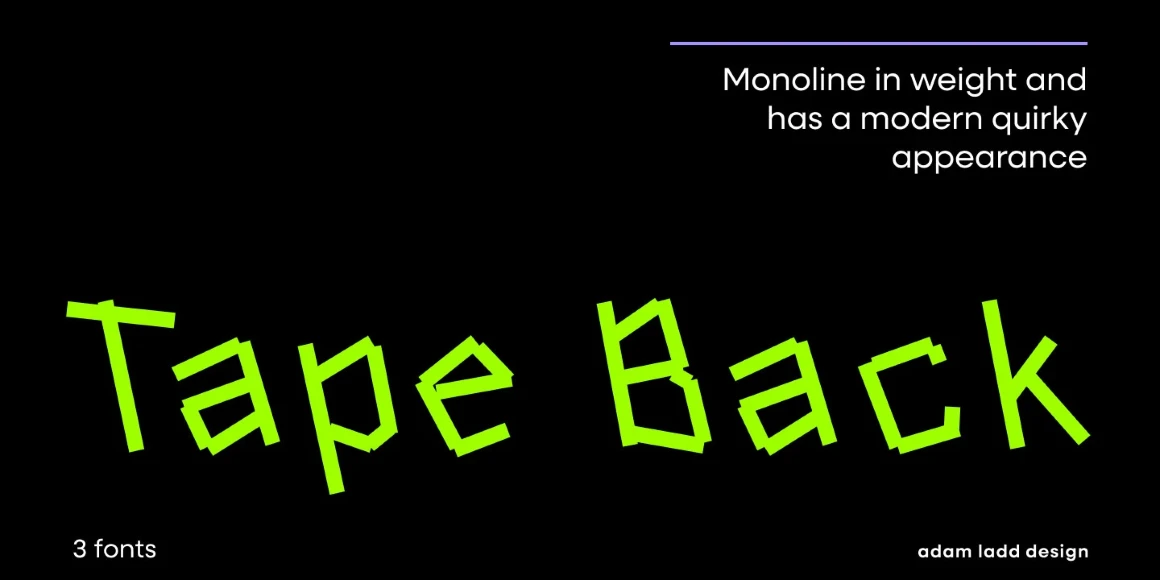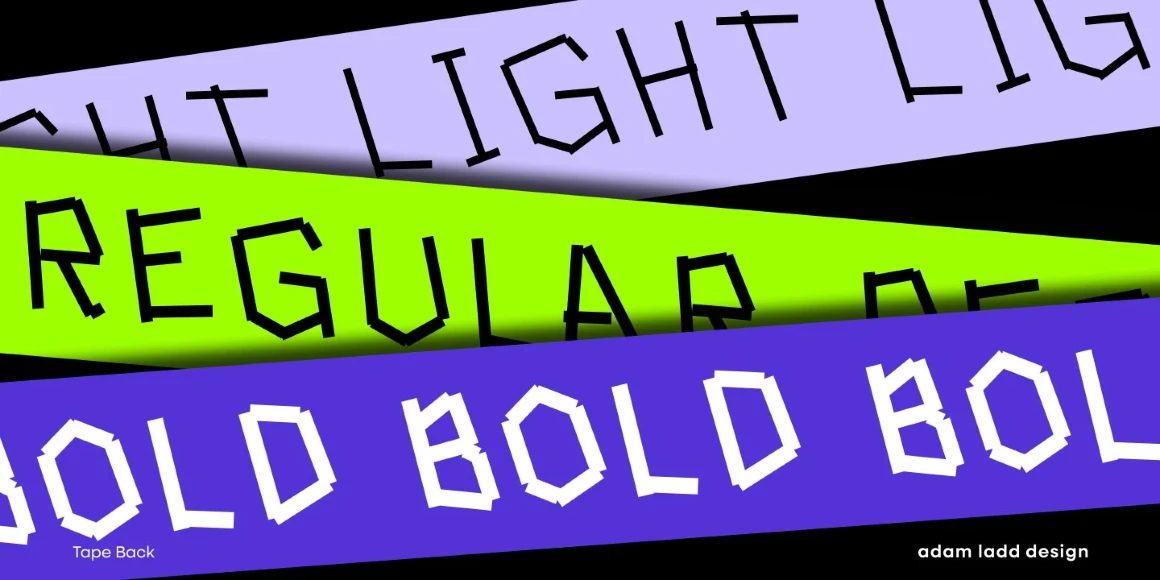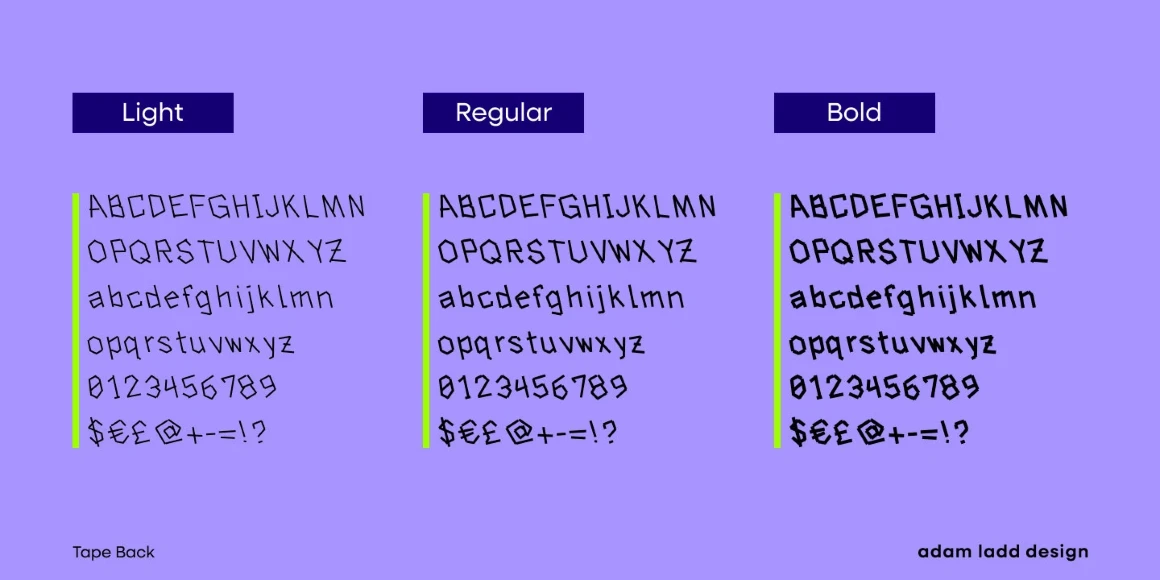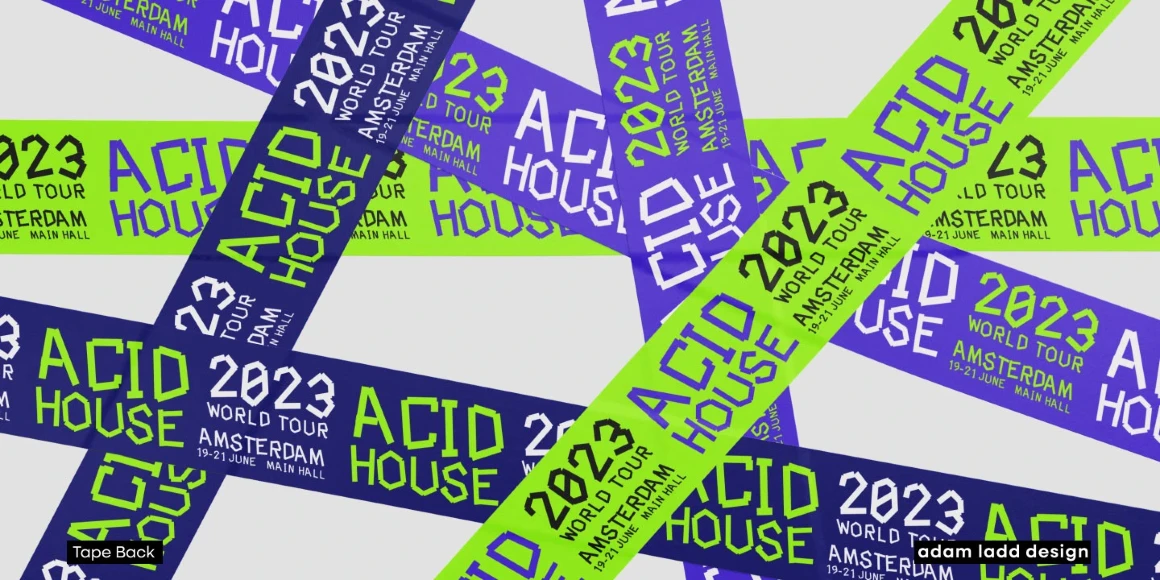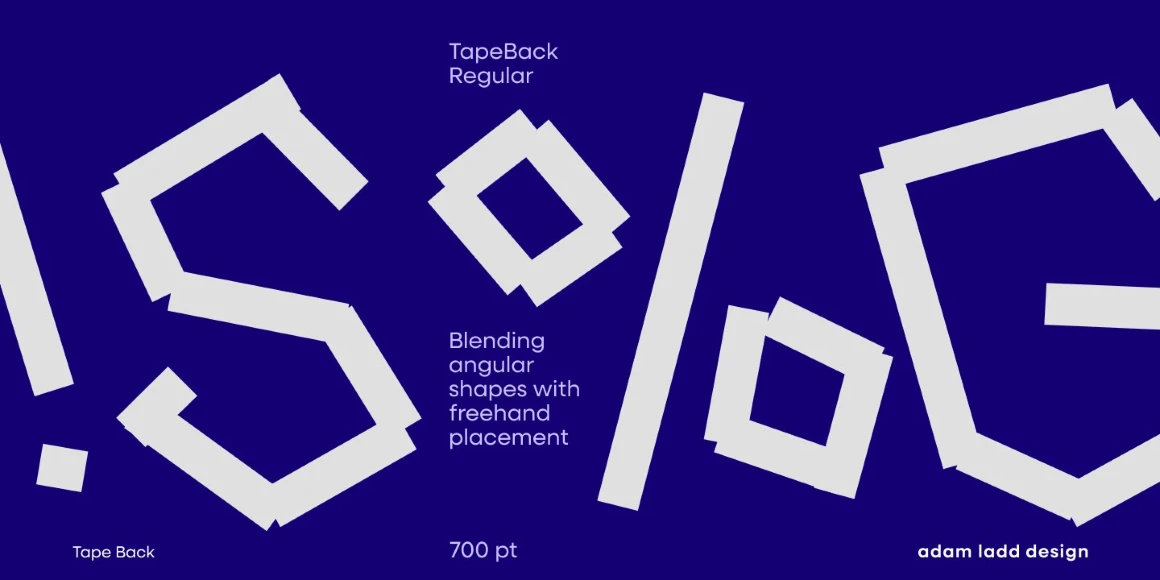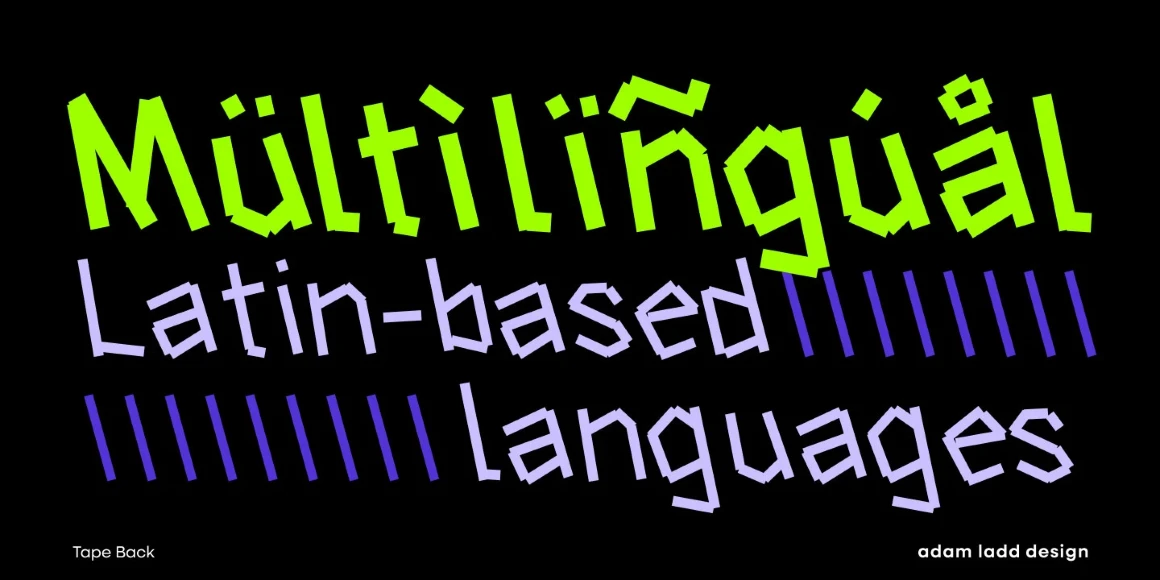
Tape Back
Tape Back is equal parts punk rock and weird science. It is a fiercely defiant collection of letters working together in a calculated rebellion of angular shapes and freehand placement. Perfect for those projects where you want a raw sense of creativity or rushed assembly. Tape Back is for cases that need the feeling of urgency, like concert posters promoting avant-garde performances or invitations to eccentric art show gatherings. Available in three weights and ripe with nonconformist attitude.